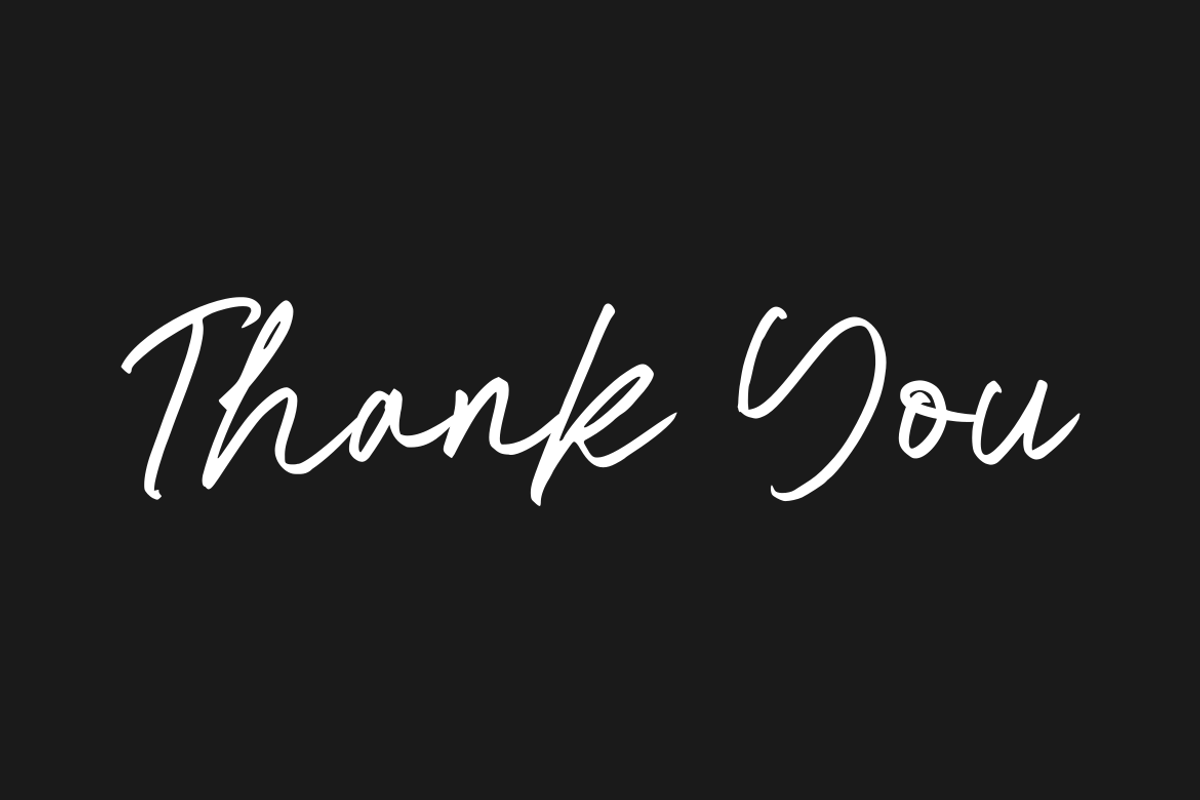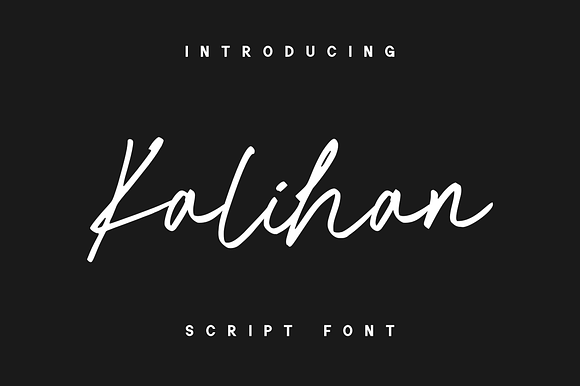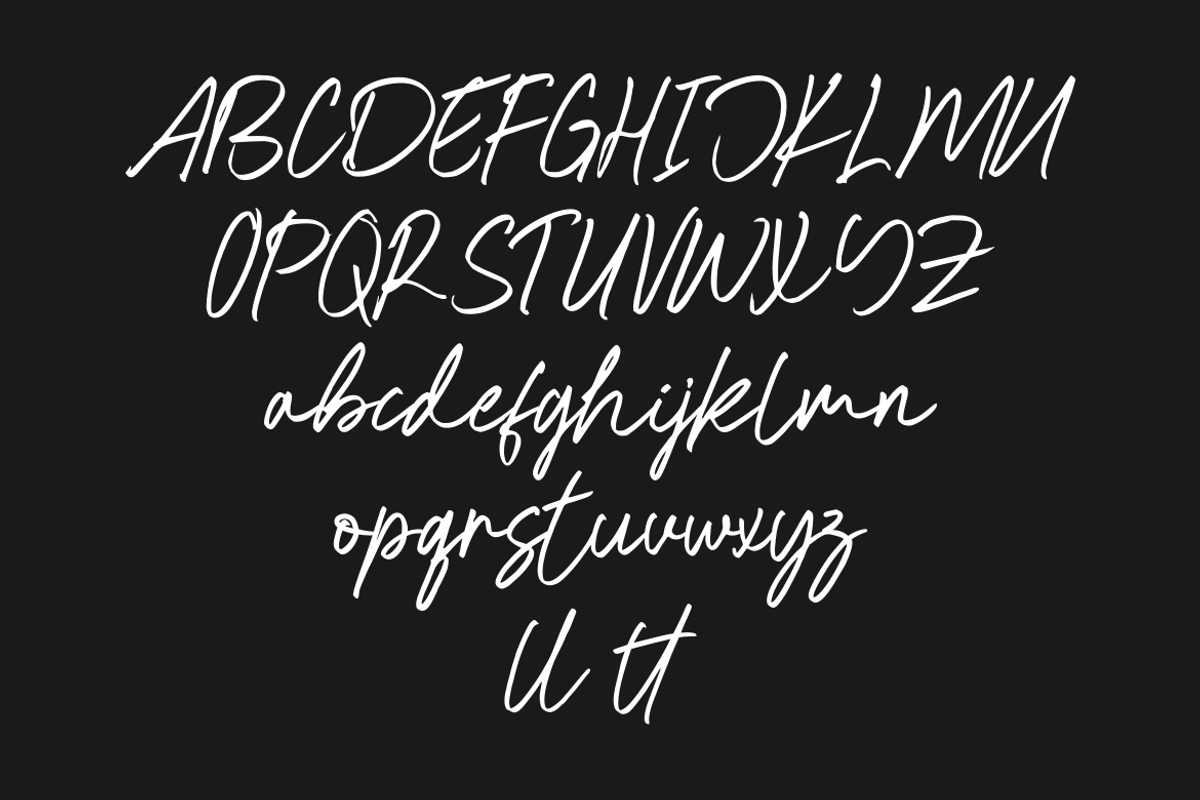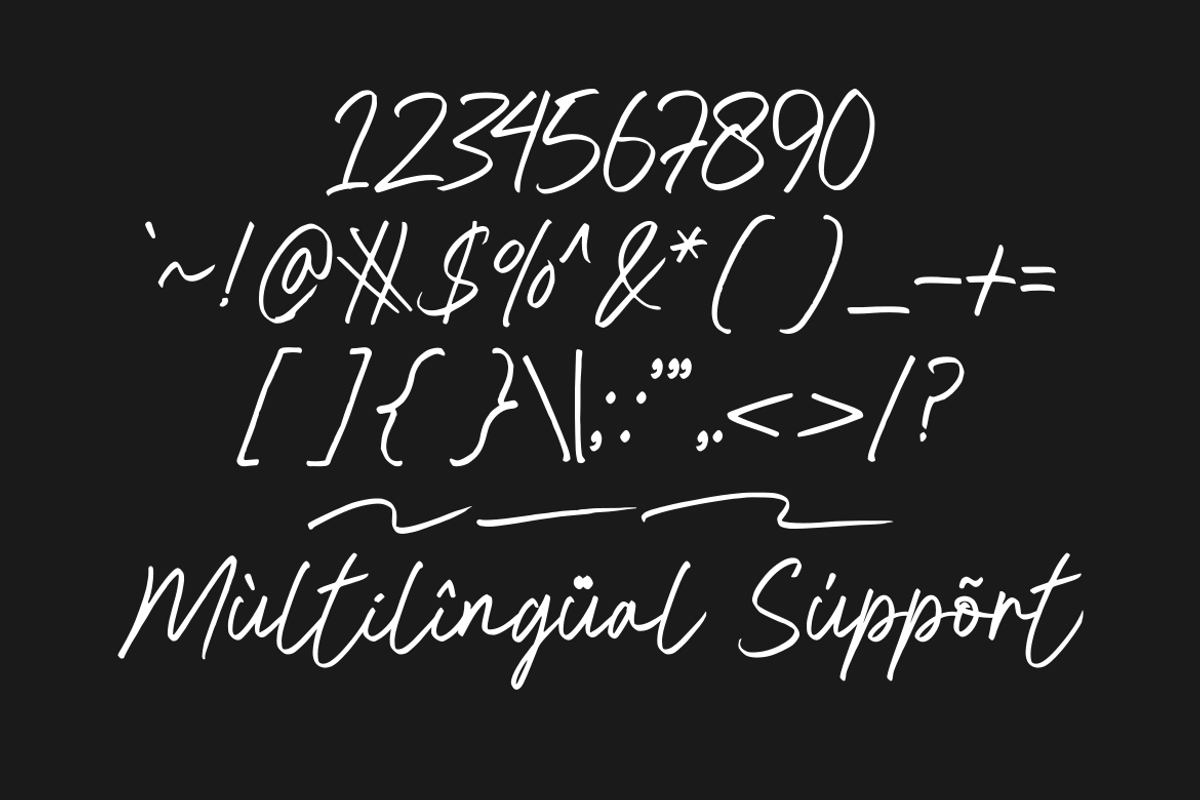
Kalihan - Script Font
Why Kalihan - Script Font is worth a look
Kalihan - Script Font by GFRcreative fits naturally into Branding, posters, packaging, typography.